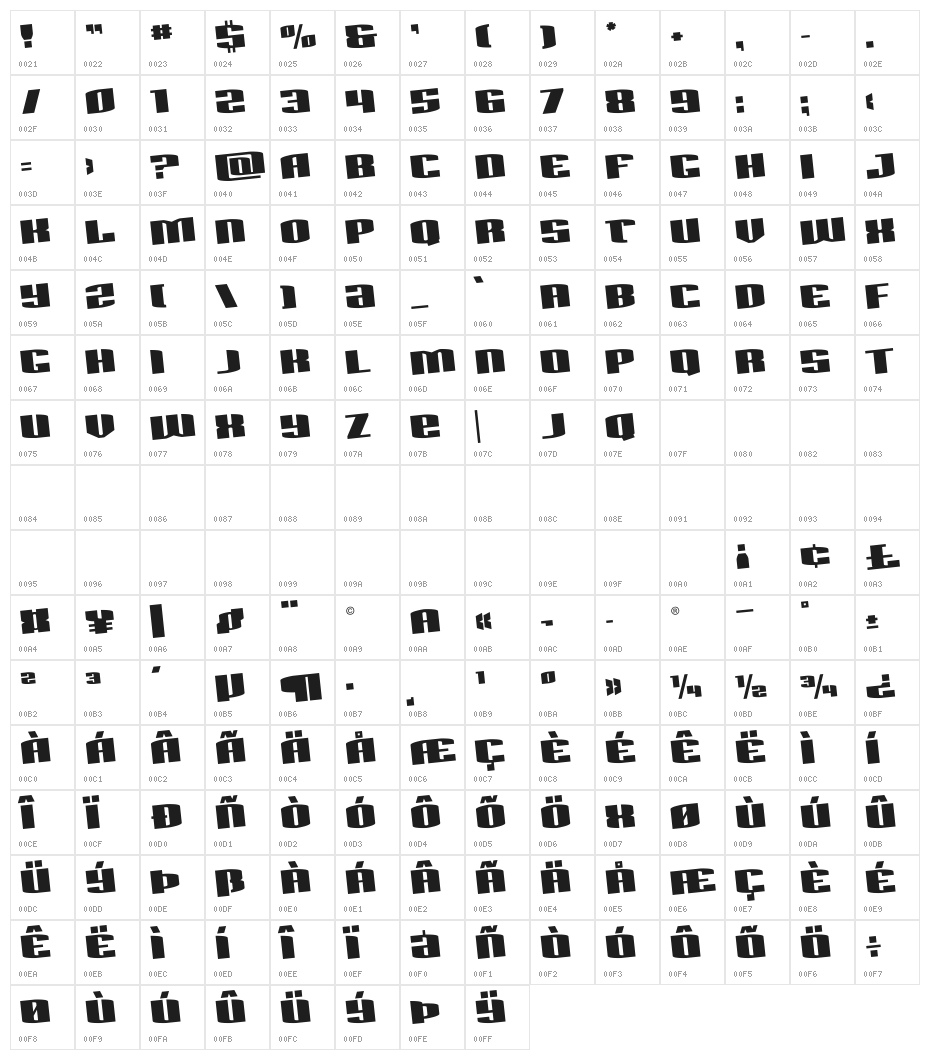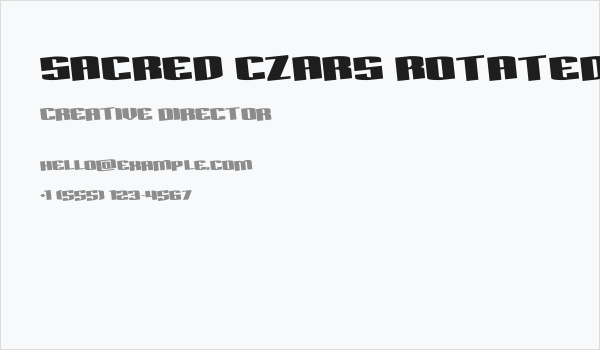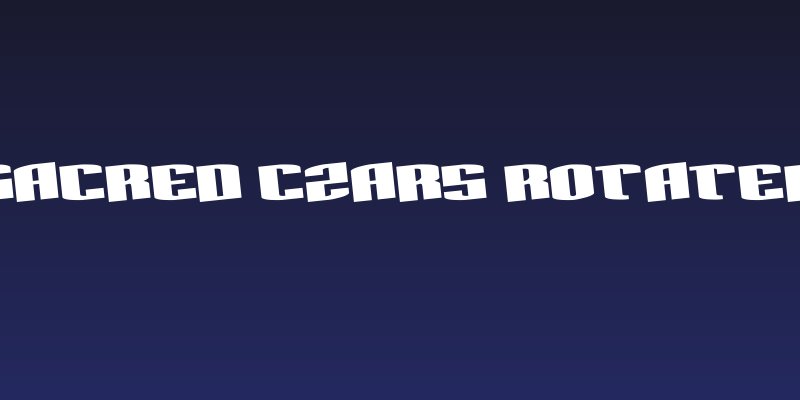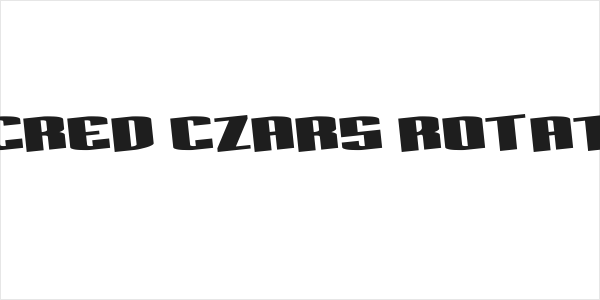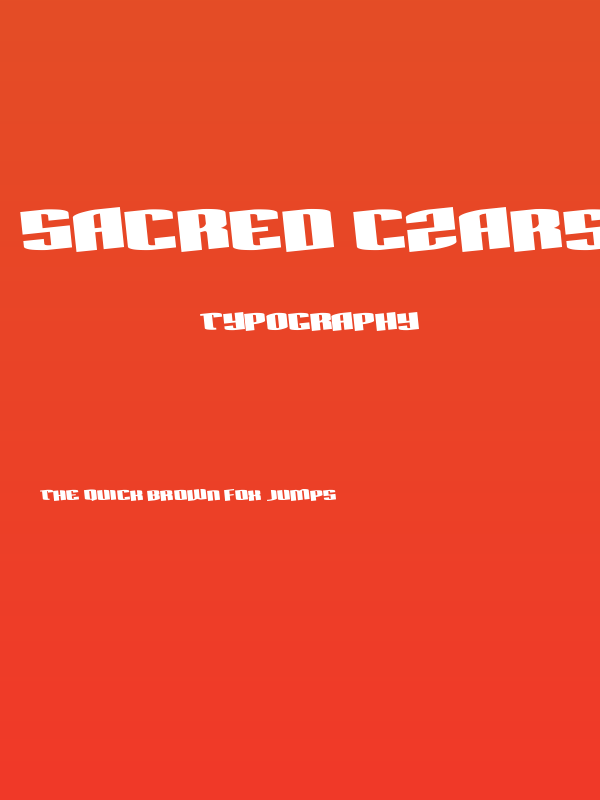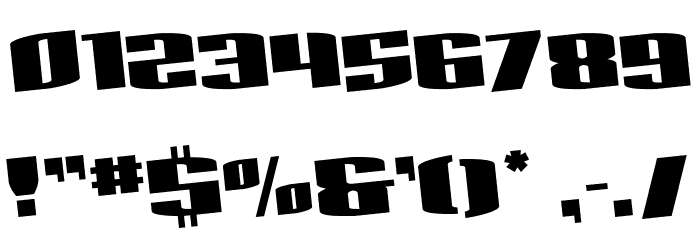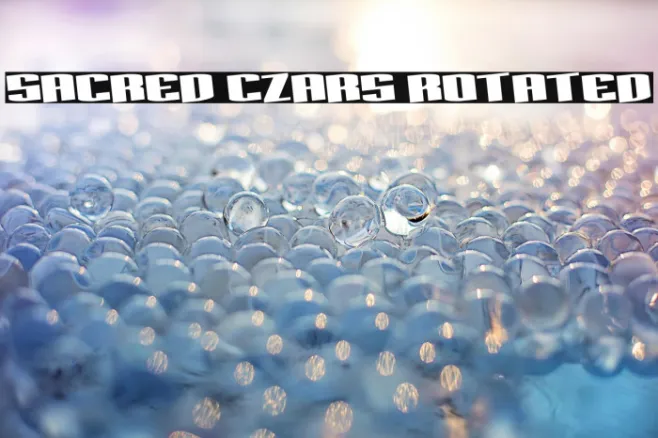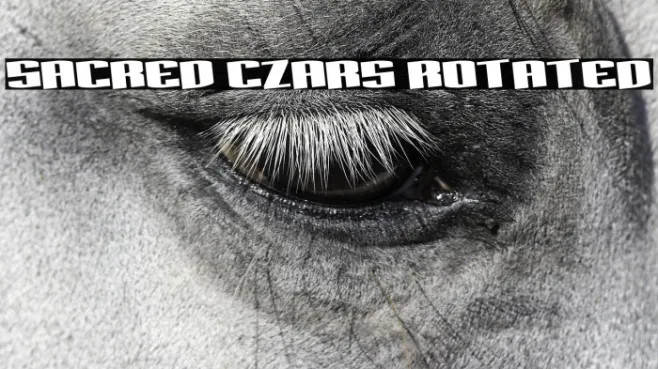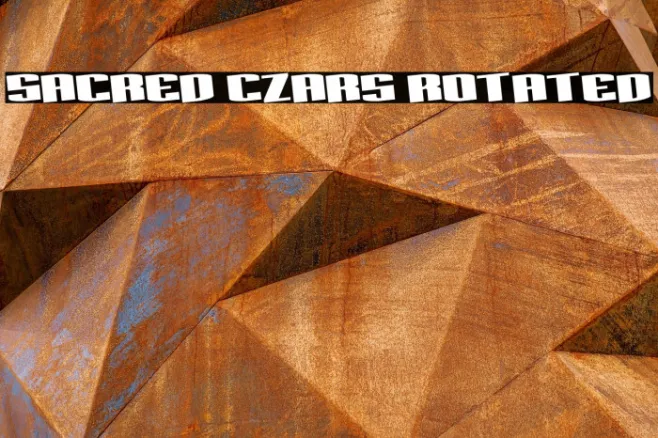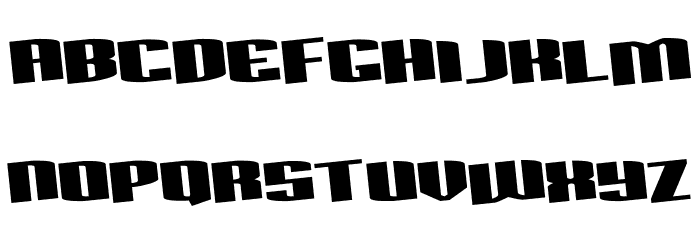
Sacred Czars Rotated Font
Sacred Czars Rotated Description
This font features a bold and dynamic style with a strong presence. The characters are slightly tilted, giving a sense of movement and energy. The strokes are thick and consistent, creating a robust and impactful appearance. The design is geometric with sharp angles, adding a modern and edgy feel. The uppercase and lowercase letters maintain a uniform width, while the numbers and special characters are designed to match the boldness of the alphabet. This font is ideal for making a statement, with its eye-catching and unconventional style.
| Proposed Projects | Ideal for posters, logos, branding, and any project needing a strong visual impact. |